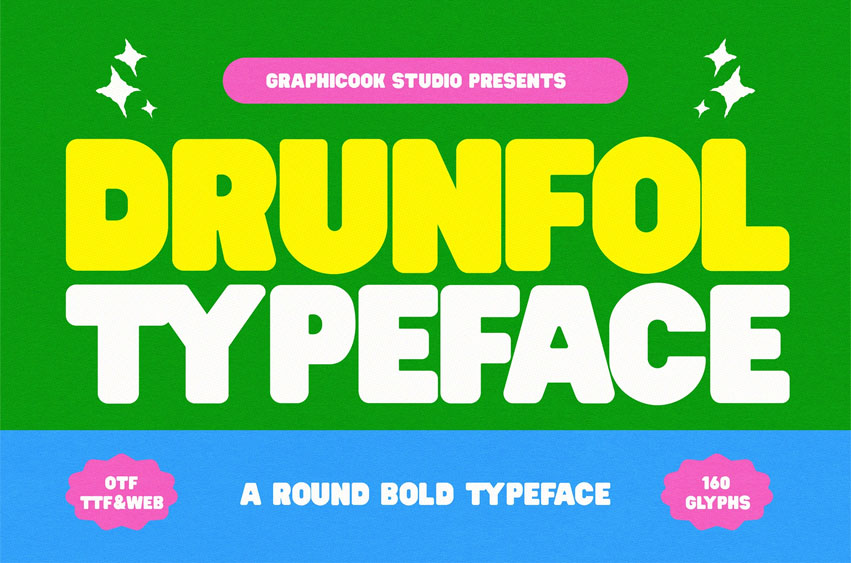
Drunfol Font is a playful display font built with bold, soft, and rounded shapes.
It delivers a cheerful, friendly, and youthful personality—great for fun, positive, and feel-good designs that want to radiate warmth and approachability.
It is perfect for headlines, logotypes, magazines, packaging, quotes, movies, games, cover albums, book covers, and flyers, it’s a perfect solution for creating eye-catching designs that stand out in any context.